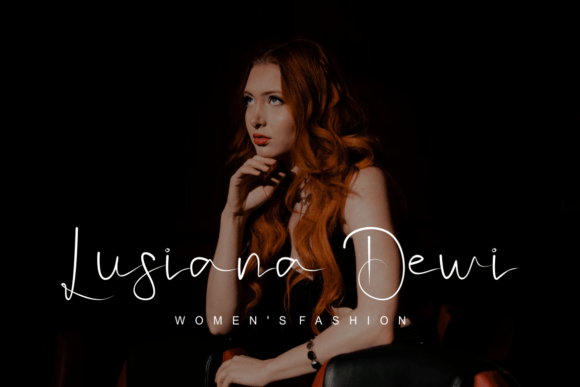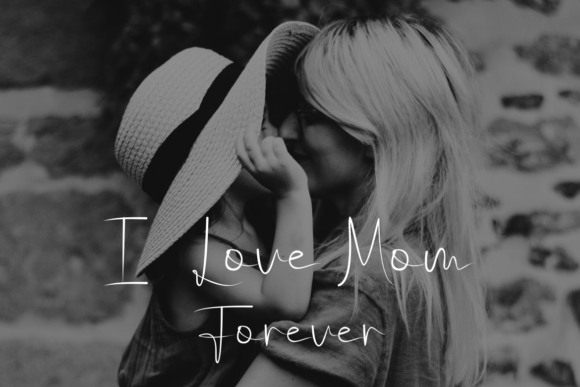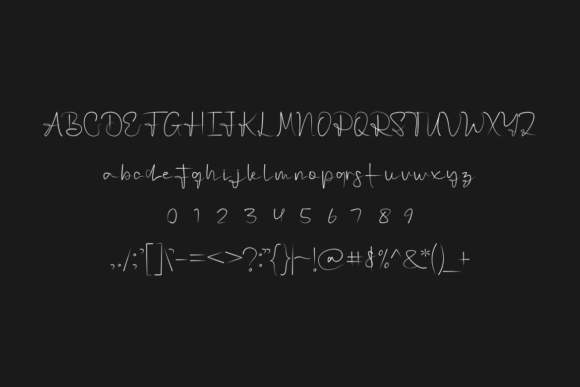
Introduction to Jalesto Font
Jalesto is a lovely and timeless handwritten font.
It is the best choice for creating eye-catching logos, branding, and quotes Every letter has a unique and beautiful touch, which will make your design come alive.
Key Features of Jalesto Font